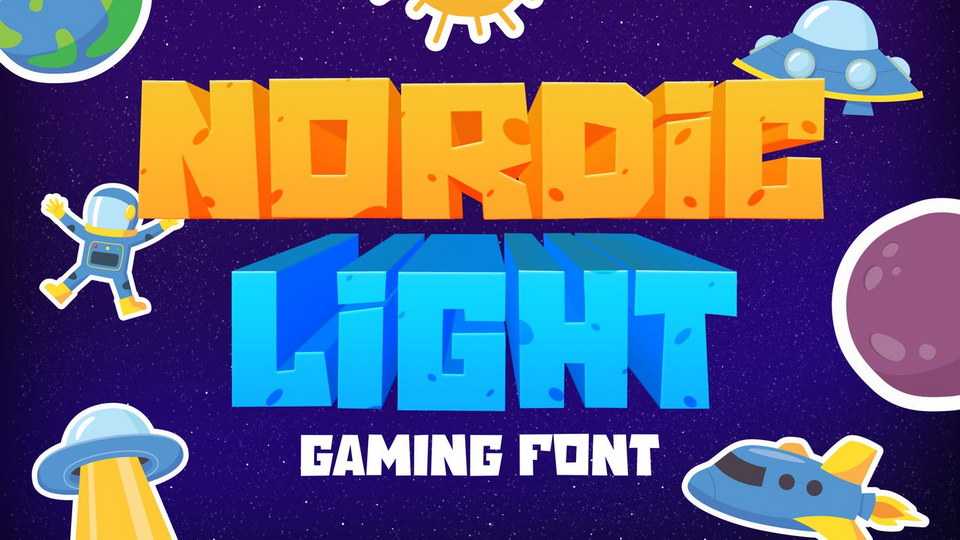
Download Nordic Light font, a cool gaming typeface. Having a squared and jaggy corner will make Nordic Light emphasize the gaming effect and the adventurous journey on every word you put on the screen.